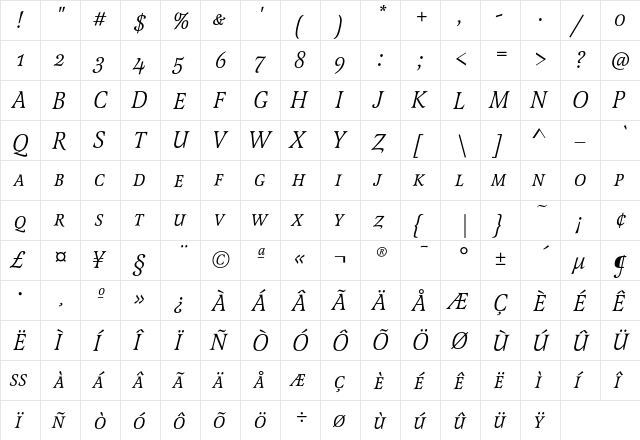
LatienneEF ItalicSC
Design Context for LatienneEF Typeface
LatienneEF is a composed and adaptable typeface that performs quietly and consistently across a wide range of design contexts. The dynamic lean of this cut emphasises speed and emphasis in any layout.
Pro Tip: Use LatienneEF for emphasis, pull quotes, and subheadings where its slanted energy can add rhythm to the layout.